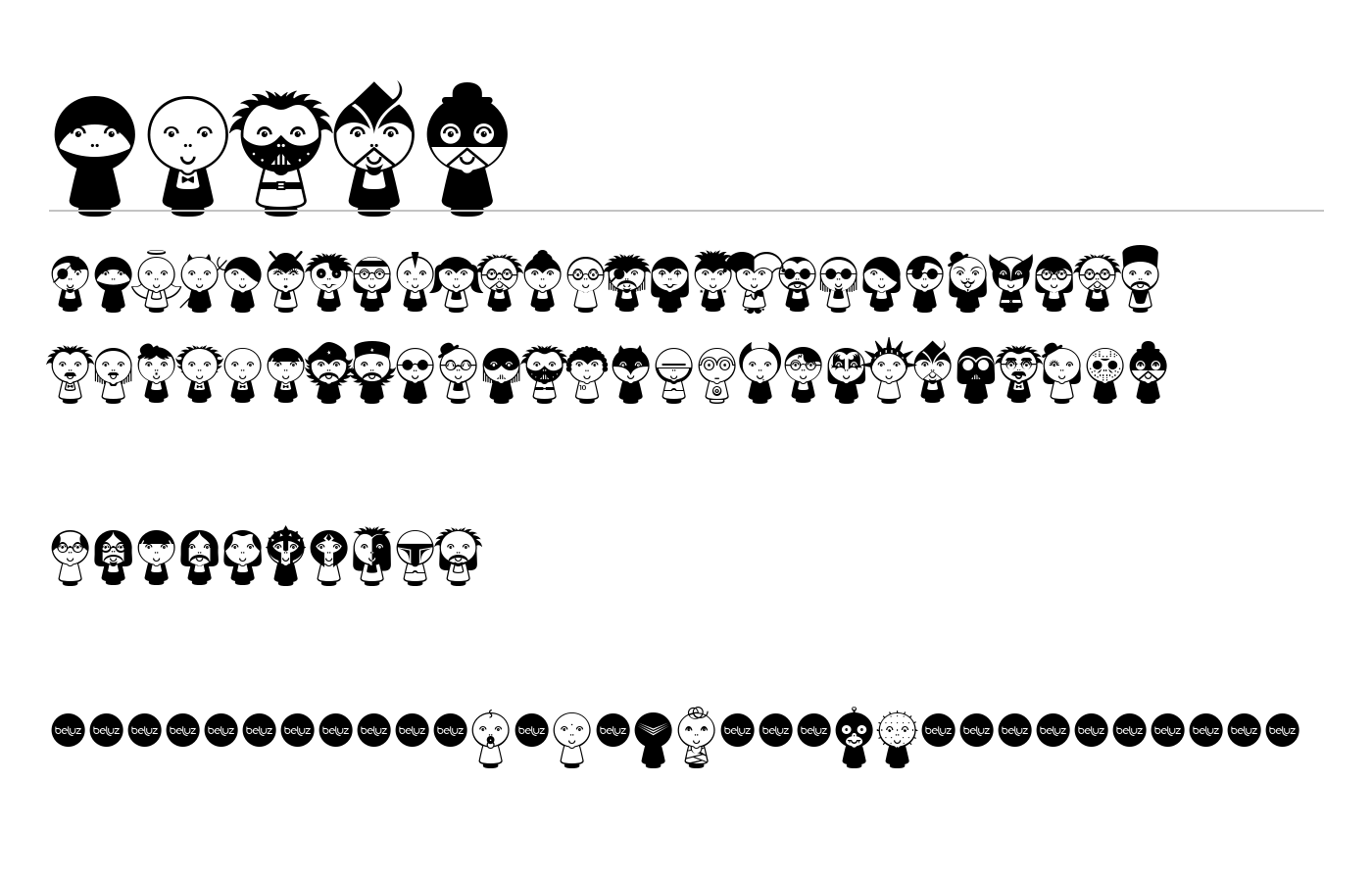
Beluz is a playful and distinctive dingbat-style font featuring a wide variety of quirky, cartoonish character icons instead of traditional letters. Its bold, simplified shapes and high contrast black-and-white design create a fun, approachable personality well-suited for creative branding, casual invitations, or unique packaging. Perfect for adding a whimsical, eye-catching touch, Beluz shines in projects that benefit from character-driven visual storytelling rather than text-heavy content.
Beluz Font
About Beluz Font